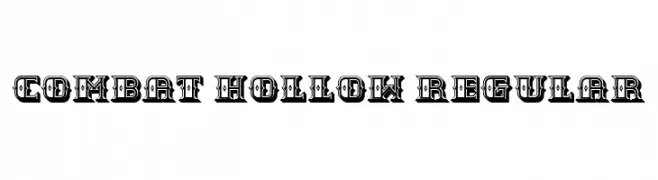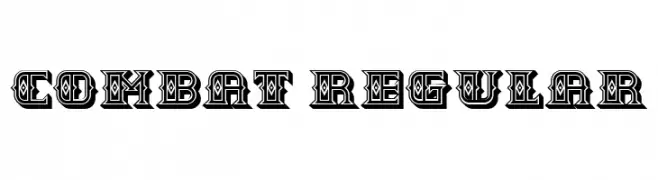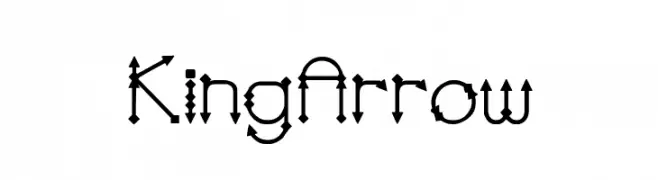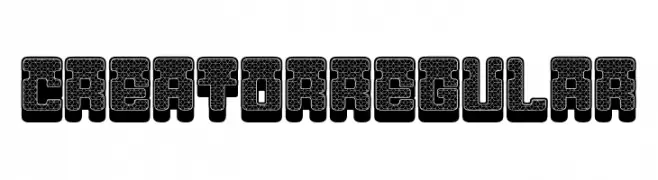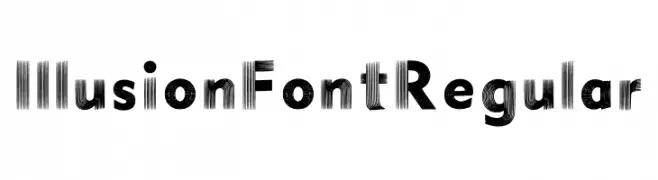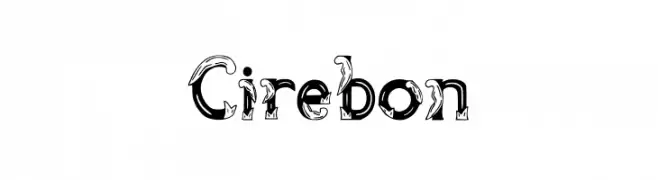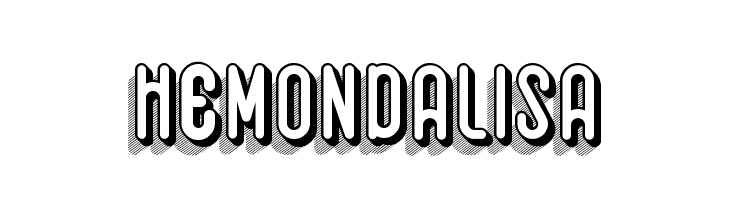
A bold, decorative font with a hollow interior and geometric elements.
A bold, decorative font with intricate geometric patterns and strong outlines.
A playful sans-serif font with paw print embellishments on each character.
A whimsical, hand-drawn font with intricate patterns and playful energy.
A playful font with arrow-themed characters, offering a dynamic and directional style.
A bold, decorative font with a honeycomb pattern and 3D effect.
A visually striking font with an illusionary effect created by parallel lines.
An artistic and decorative font with intricate detailing and vintage flair.
A bold, geometric font with circular enclosures and modern design.
A bold, geometric font with intricate concentric patterns.